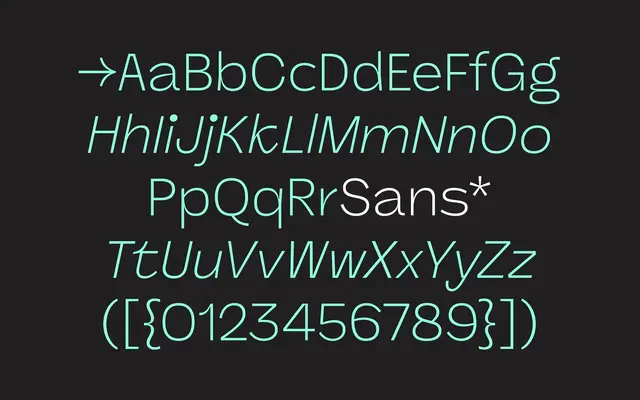
Panel Sans Mono
A monospaced sans that sits within a superfamily spanning proportional and serif subfamilies across five weights with matching italics.
Panel Sans Mono is the fixed-width arm of the Panel superfamily, which encompasses Panel, Panel Mono, Panel Sans and Panel Sans Mono across a shared weight range from Light to Black. Each subfamily carries a full italic set, giving the family 40 fonts in total. The pairing of proportional and monospaced cuts within the same system makes it well suited to interfaces or editorial work where text and code must coexist.
Panel Sans Mono is the monospaced variant within the Panel superfamily, sharing proportions and weight range with its proportional siblings but spaced on a fixed grid, classifying it firmly as a monospaced sans-serif.